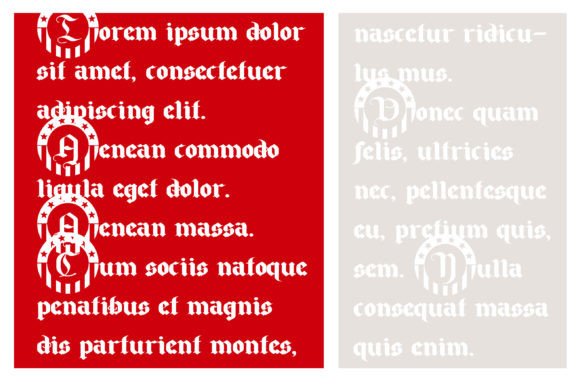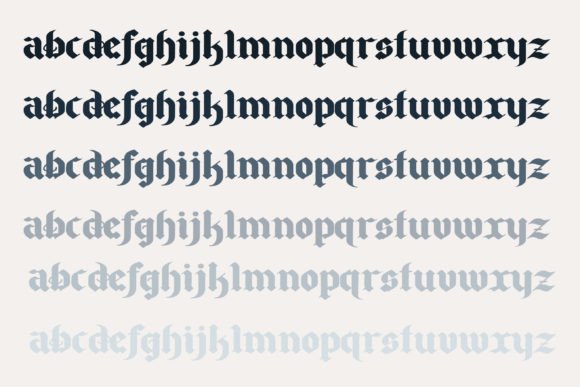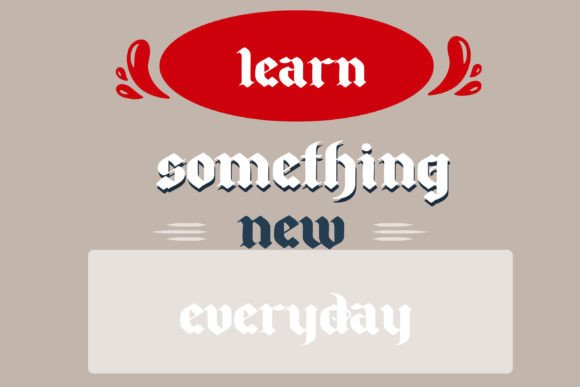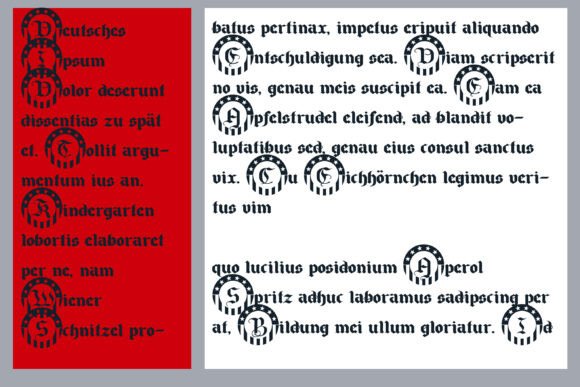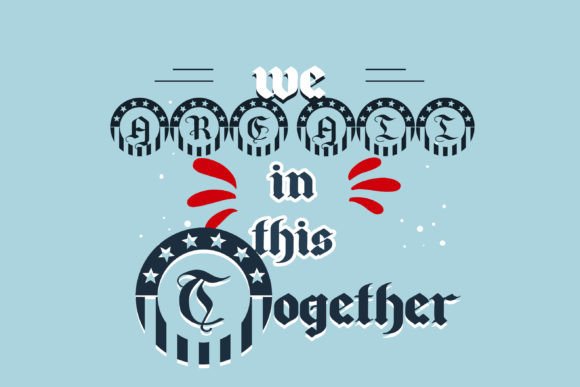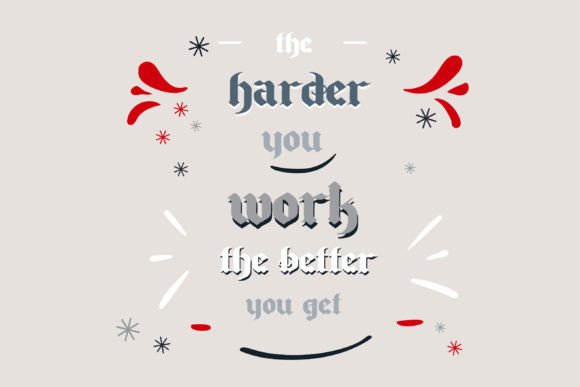
Canton Constitution Font: A Timeless Monogram Font for Designers and Crafters
The Canton Constitution Font is a beautiful monogram font that features stars and stripes uppercase letters with elegant calligraphy-style lettering. This stunning font is perfect for designers and crafters looking to add a touch of classic charm to their projects. In this article, we’ll explore the unique features of the Canton Constitution Font, its uses, and why it’s a popular choice among designers and crafters.
Unique Features of Canton Constitution Font
The Canton Constitution Font is characterized by its striking uppercase letters, adorned with stars and stripes, giving it a patriotic and timeless feel. The font’s calligraphy-style lettering adds a touch of elegance and sophistication, making it perfect for formal and informal projects. The lowercase letters are designed to accent the monogram, providing a beautiful contrast to the bold uppercase letters.
Uses of Canton Constitution Font
This versatile font can be used for a variety of purposes, including:
- Invitations: The Canton Constitution Font is an excellent choice for creating formal and informal invitations for weddings, parties, and other special events.
- Greeting Cards: The font’s elegant calligraphy-style lettering makes it perfect for creating beautiful greeting cards for birthdays, holidays, and other occasions.
- Stationery: Add a touch of classic charm to your stationery with the Canton Constitution Font, perfect for writing letters, notes, and cards.
- Crafting: This font is a popular choice among crafters for creating handmade cards, scrapbooking, and other paper crafting projects.
Why Designers and Crafters Love Canton Constitution Font
The Canton Constitution Font is a favorite among designers and crafters due to its unique features and versatility. Here are some reasons why:
- Timeless Appeal: The font’s classic design ensures that it will remain stylish and relevant for years to come.
- Elegant Calligraphy: The calligraphy-style lettering adds a touch of sophistication and elegance to any project.
- Easy to Read: Despite its ornate design, the Canton Constitution Font is easy to read, making it perfect for body text and headlines.
- Customization: The font’s monogram design allows for endless customization possibilities, making it perfect for creating unique and personalized projects.
Tips for Using Canton Constitution Font
Here are some tips for getting the most out of the Canton Constitution Font:
- Pair with Simple Fonts: Pair the Canton Constitution Font with simple fonts to create a striking contrast and add visual interest to your project.
- Use for Headlines: The font’s bold design makes it perfect for headlines and titles, adding a touch of elegance and sophistication to your project.
- Experiment with Colors: The Canton Constitution Font looks stunning in a variety of colors, from classic black and white to bold and bright hues.
The Canton Constitution Font is a timeless monogram font that is perfect for designers and crafters looking to add a touch of classic charm to their projects. Its unique features, versatility, and elegant calligraphy-style lettering make it a popular choice for a variety of purposes, from invitations and greeting cards to stationery and crafting. Whether you’re a seasoned designer or a crafty enthusiast, the Canton Constitution Font is sure to inspire your creativity and take your projects to the next level.